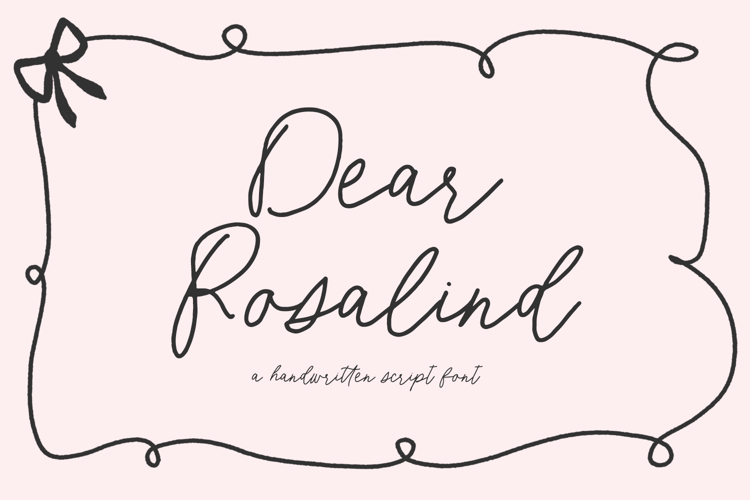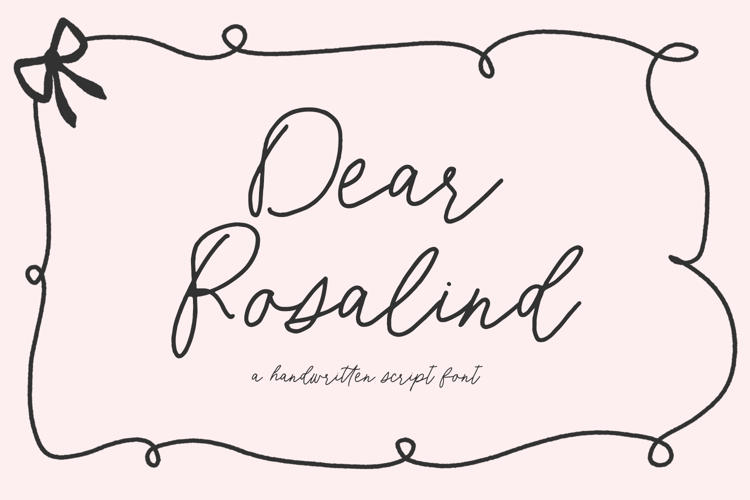
Dear Rosalind Script
Dear Rosalind Script is a flowy cursive font with an authentic handwritten appearance. This script font includes alternates and ligatures to provide options to customize your text. Dear Rosalind has a slight texture, like a ballpoint pen.
Dear Rosalind Script includes:
- 27 lowercase alternates
- 37 ligatures - aa, az, bb, cc, cz, dd, ee, ez, ff, fl, fr, fz, gg, hh, ii, jj, kk, ll, mm, nn, oo, oz, pp, qq, rr, ss, tt, uu, vr, vv, vz, wr, ww, wz, xx, yy, zz